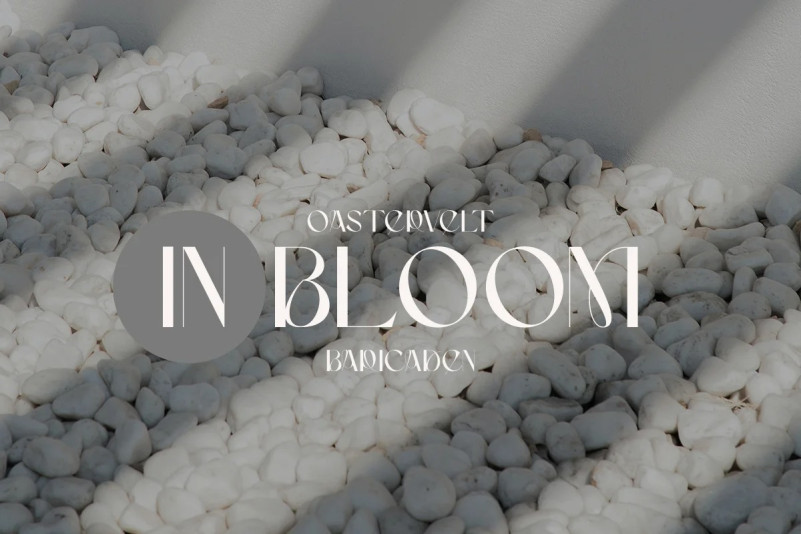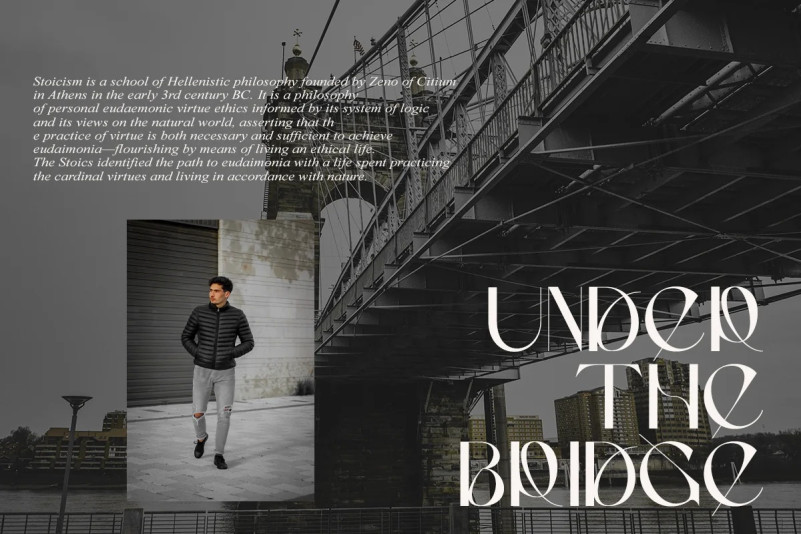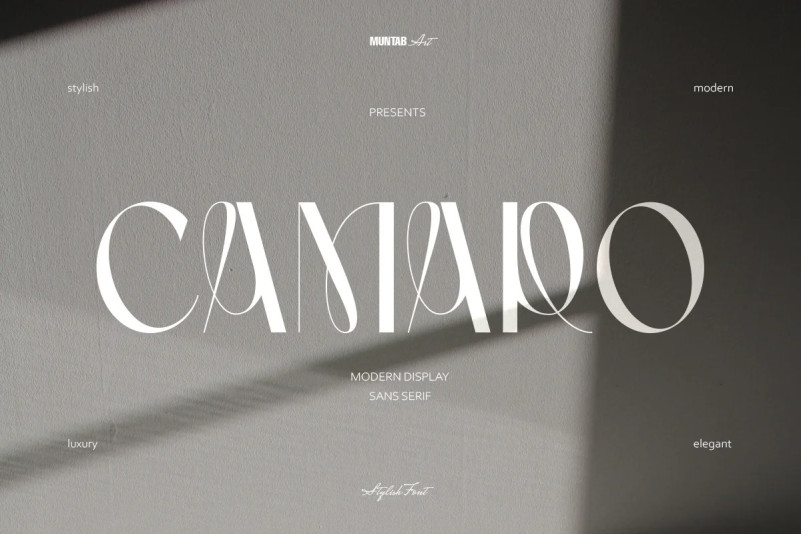
Camaro Font
Camaro Display font include uppercase letters, numerals, a large range of punctuation. Sans Serif font with modern stylish style. Created for poster, web design, branding, illustrations, badges, and some other works.